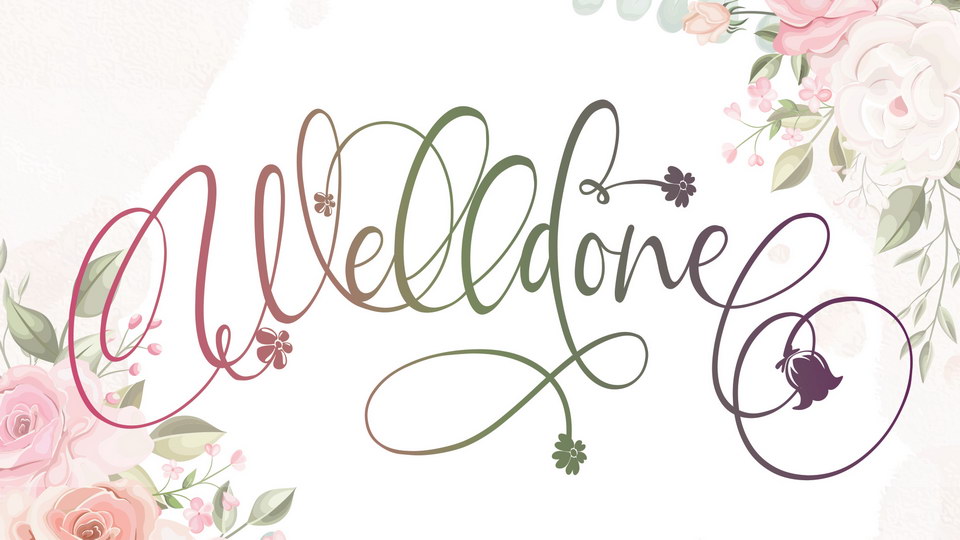
Feb 10, 2025Script & HandwrittenWelldone Script Welldone is a flower calligraphy font with an incredibly luxurious feel. Welldone script will add a romantic touch to any crafting project. Font DetailsDesigned by: Thomas Aradea (Letterara)WebsiteLicense: Free for personal use Download Welldone ScriptFile size: 32.71 KBCreated: February 16, 2025Updated: February 16, 2025 Download Explore similar fonts Difarina Sweet Font Campana Script Font Kalinda Script Font Always in the Star Font Sofiya Wiyona Font Renitta Font # Bouncy# Calligraphy# Decorative# Elegant# Fancy# Handwriting# Pretty# Wedding More fonts by Thomas Aradea (Letterara)Allrion FontMabelle FontChristmas Hearths FontMy Valentine FontBestowens FontStorm Wraith FontHarax FontBlack Pink Script